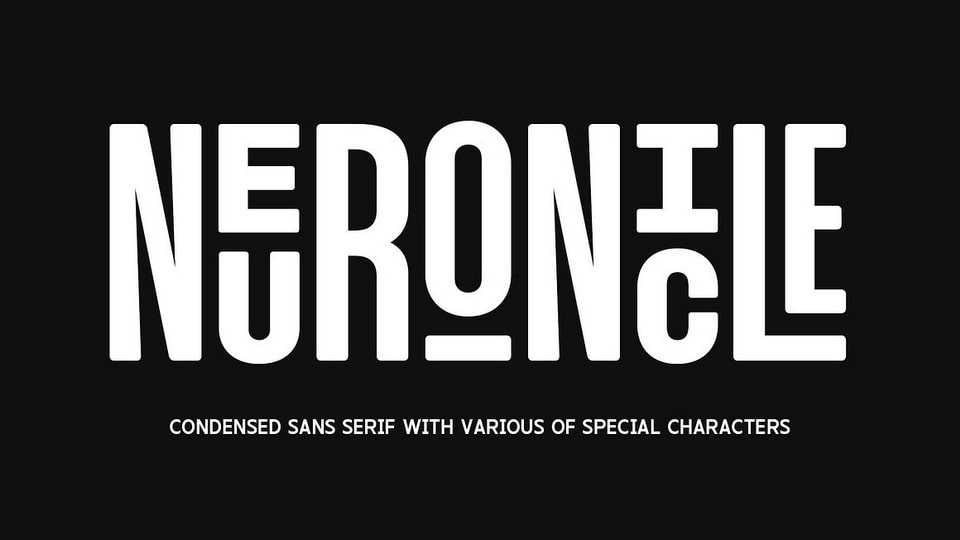
Download Neuronicle font, a condensed sans typeface with a playful and expressive character. Its bold weight and rounded corners create a relaxed yet elegant impression — striking the perfect balance between fun and sophistication.